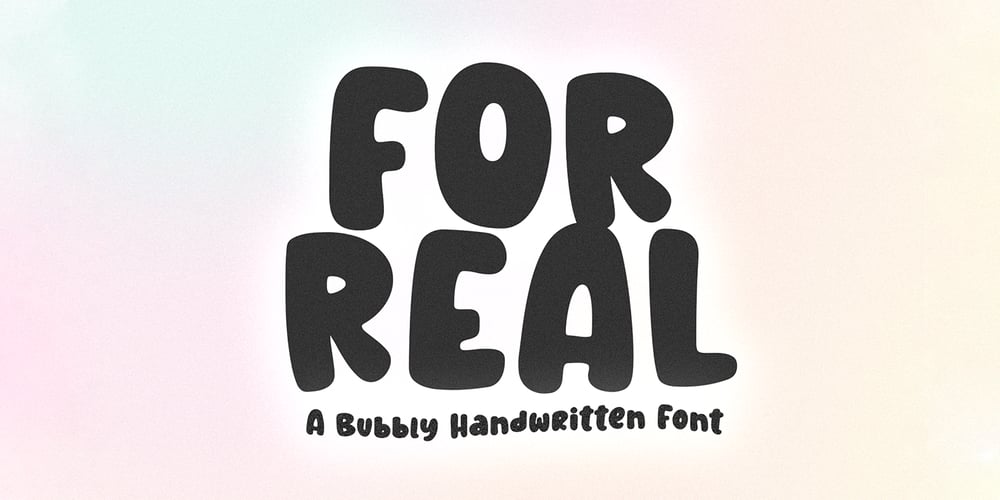
For Real
For Real font
For Real Font Family was designed by Kaitlynn Albani and published by KA Designs. For Real contains 1 styles and family package options. For Real is a fun mix of bubbly and retro.. you could say it’s a little groovy too! Each letter is hand-drawn giving this font a unique and fun look!For Real boasts big bubbly letters that are perfect for all of your retro designs, t-shirt designs, branding, packaging, advertisements, social media, posters and more!